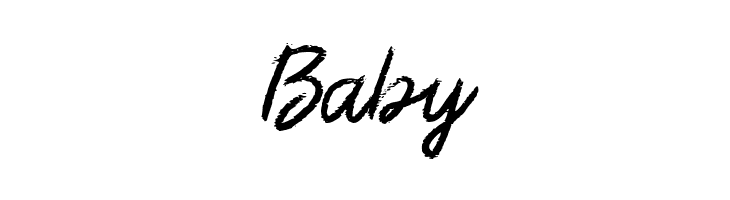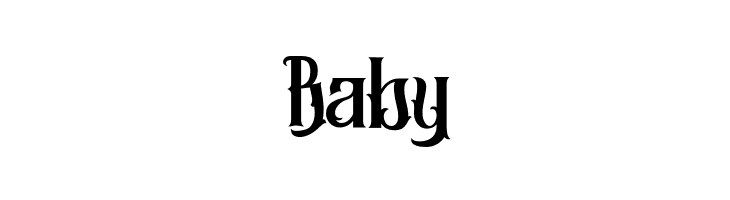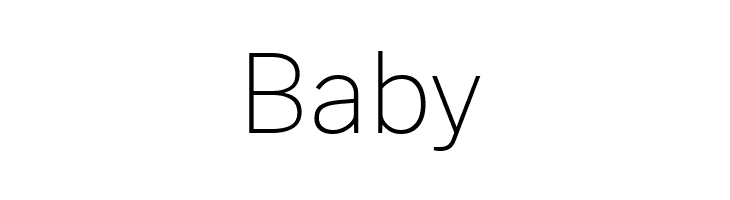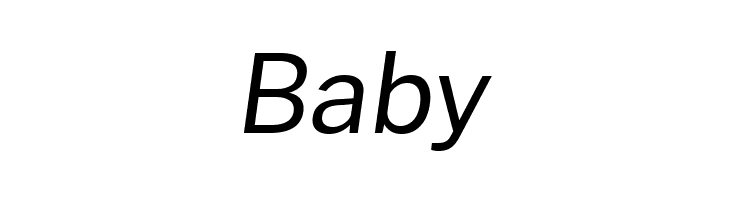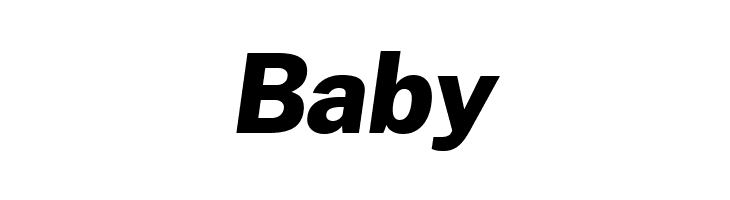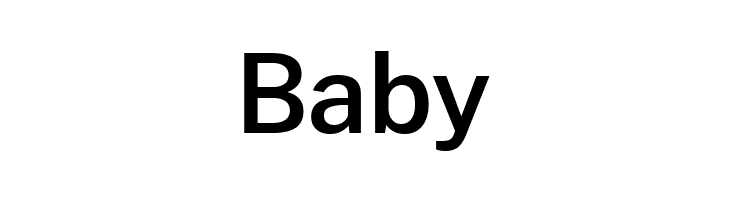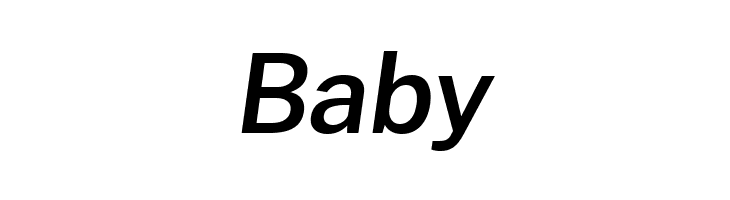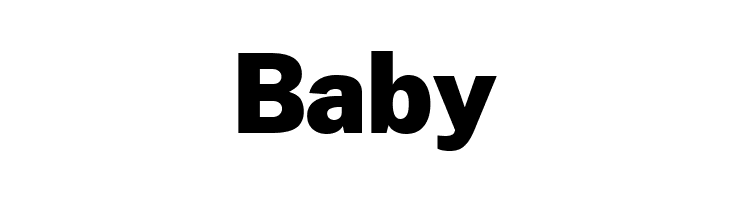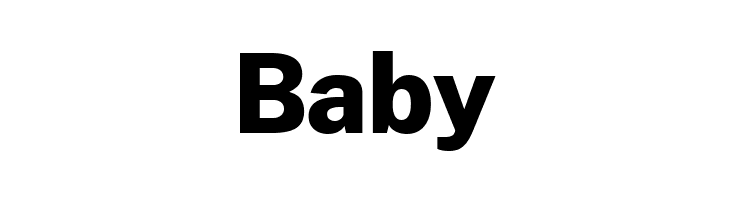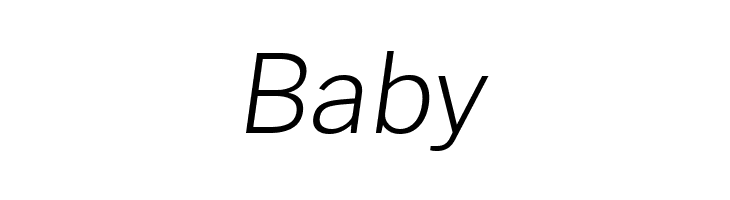
A bold, textured font with a hand-drawn, chalk-like appearance.
A dynamic and elegant italic font with flowing curves and interconnected letters.
A dramatic and ornate Blackletter-style font with sharp, angular lines and intricate detailing.
A bold, decorative font with medieval-inspired details and ornate flourishes.
An elegant serif font with classic, refined characters and slight stroke contrast.
A classic serif font with elegant strokes and refined proportions.
A high-contrast, elegant serif font with sharp serifs and modern style.
An elegant script font with flowing, decorative swashes and a modern calligraphic style.
A flowing, cursive font with elegant, handwritten characteristics.
A bold, geometric font with strong visual impact.
A dynamic, expressive handwritten font with fluid, cursive letterforms.
An elegant script font with fluid, cursive strokes and high contrast, ideal for formal and decorative uses.
A modern, clean sans-serif font with balanced spacing and consistent stroke width.
A bold, impactful typeface with uniform strokes and strong presence.
A bold, italicized font with a strong, dynamic presence.
A bold, modern font with strong, thick strokes and excellent readability.
Bold, italicized font with a modern and dynamic style.
A bold, geometric sans-serif typeface with strong, uniform strokes.
A bold, italic font with a modern and dynamic style.
A modern, extra light sans-serif font with clean lines and low contrast.
A sleek, modern extra light italic font with elegant slanted characters.
A sleek, modern italic font with smooth curves and clean lines.
A clean, modern sans-serif typeface with uniform strokes and balanced spacing.
An elegant script font with graceful, flowing lines and a sophisticated style.
An elegant script font with flowing cursive strokes and refined flourishes.
A bold, playful font with blocky, rounded characters.